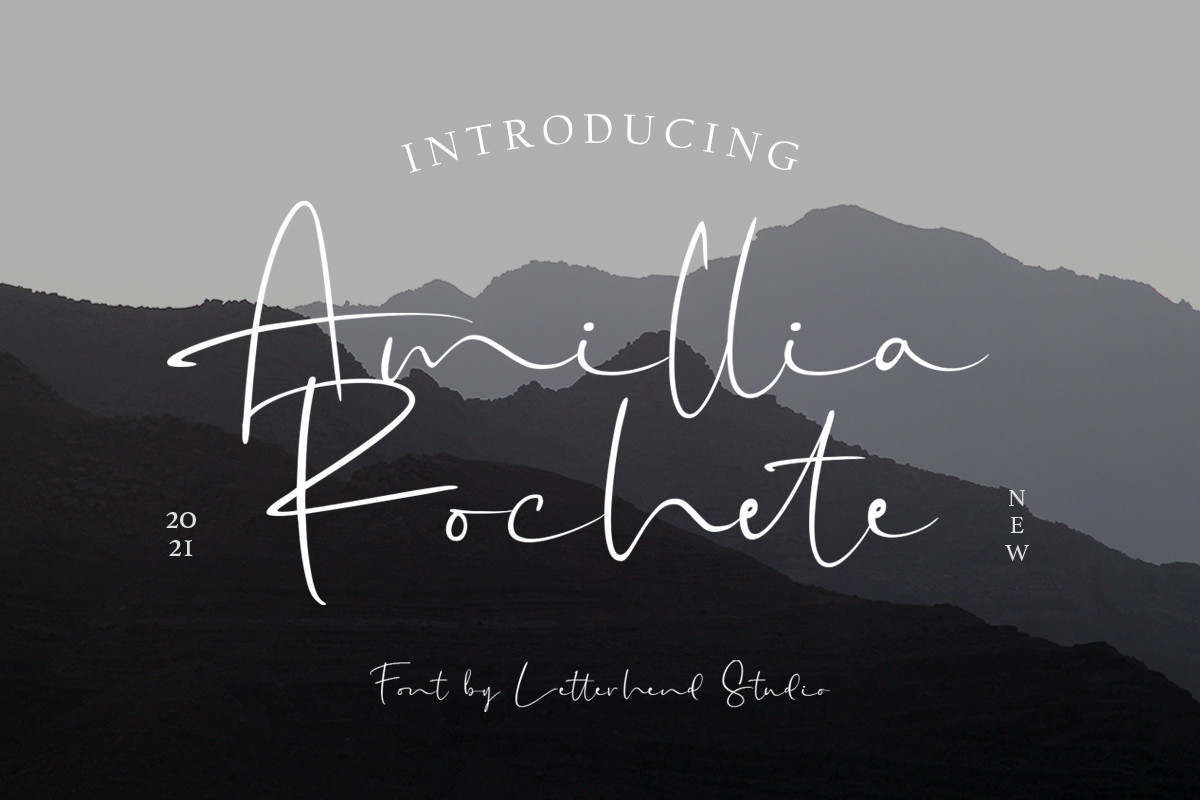
Amillia Rochete Font
The Amillia Rochete Font is ideal for luxury fashion branding, high-end jewelry packaging, premium cosmetics labels, elegant wedding invitations, boutique hotel signage, sophisticated restaurant menus, upscale spa materials, and exclusive event stationery. This exquisite typeface brings refined Parisian elegance to any design project requiring ultimate sophistication and feminine luxury.
What makes the Amillia Rochete Font so exciting is its extraordinary combination of French couture elegance with contemporary luxury design sensibilities. The font features delicate letterforms with sophisticated curves, refined details, and subtle feminine touches that evoke the timeless glamour of Parisian fashion houses and luxury boutiques. Each character demonstrates meticulous attention to typographic craftsmanship and aesthetic refinement.
The Amillia Rochete Font family includes thin, light, regular, medium, and bold weights, each available in upright and italic styles, plus decorative alternates and ornamental flourishes, providing designers with comprehensive tools for creating cohesive luxury brand experiences and elegant design systems.
Experience unparalleled luxury with the Amillia Rochete Font Free Download. This sophisticated typeface has become the preferred choice among luxury brand designers, high-end fashion houses, and premium lifestyle companies who demand typography that reflects exclusivity and refined taste. The font features an extensive character set including multilingual support, stylistic alternates, ligatures, and decorative elements optimized for luxury applications.
Whether you're developing brand identity for prestigious fashion labels, creating packaging for premium beauty products, or designing materials for exclusive luxury events, this font delivers exceptional elegance. The carefully crafted letterforms maintain perfect readability while conveying the sophisticated aesthetic that distinguishes luxury brands from mainstream competitors in today's discerning marketplace.
Luxury brand strategists appreciate the font's ability to communicate exclusivity, craftsmanship, and feminine sophistication without appearing ostentatious or artificial. The refined design details create an immediate perception of quality and prestige that resonates with affluent consumers who value authenticity and exceptional design standards.
The Amillia Rochete Font excels in premium applications where brand perception and emotional connection are paramount, from luxury packaging design to exclusive hospitality materials. The font's sophisticated presence enhances brand value while maintaining elegant readability across various luxury touchpoints.